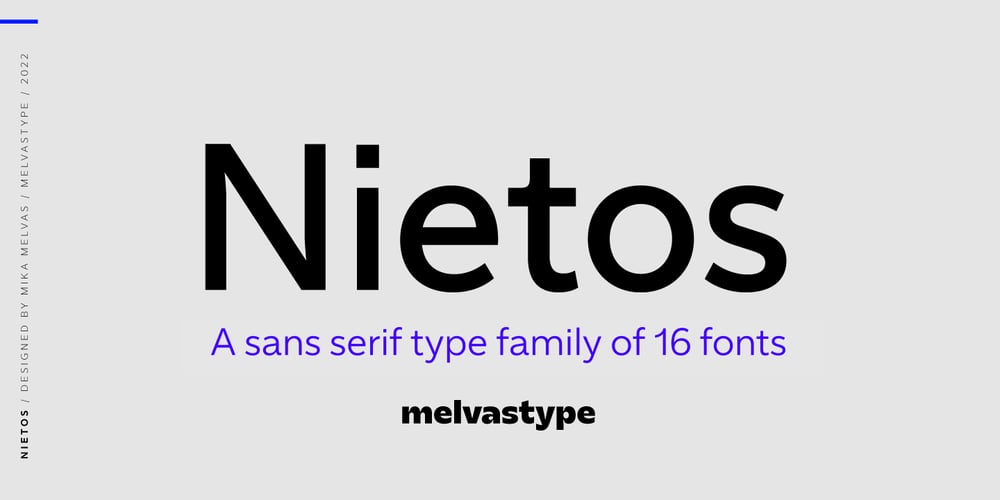
Nietos
Nietos font
Nietos Font Family was designed by Mika Melvas and published by Melvastype. Nietos contains 16 styles and family package options. Nietos is a geometric sans serif type family of 16 fonts. Nietos is a clean and classy font but still full of character and warmth. It has open apertures to improve the legibility at small sizes. Terminals are angled and the contrast is low. Nietos has double-storey lowercase a to enhance the legibility but there is also one-strorey lowercase a included as a Stylistic Alternate.Nietos OpenType features: Stylistic Alternates for lowercase a and uppercase I, Case Sensitive Forms, Arrows, Circled and Black Circled Figures, Proportional Old Style figures, Tabular Lining figures, Slashed Zero, Fractions, Superscript and Subscript figures.